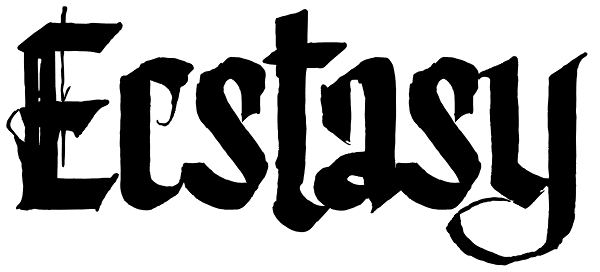
Ecstasy
This calligraphic type is based on a free-styled blackletter with an ink-stained spirit. By having several stylistic alternates (on both U&lc.) plus some non standard ligatures, your text may look like it’s written or handmade! You should combine...